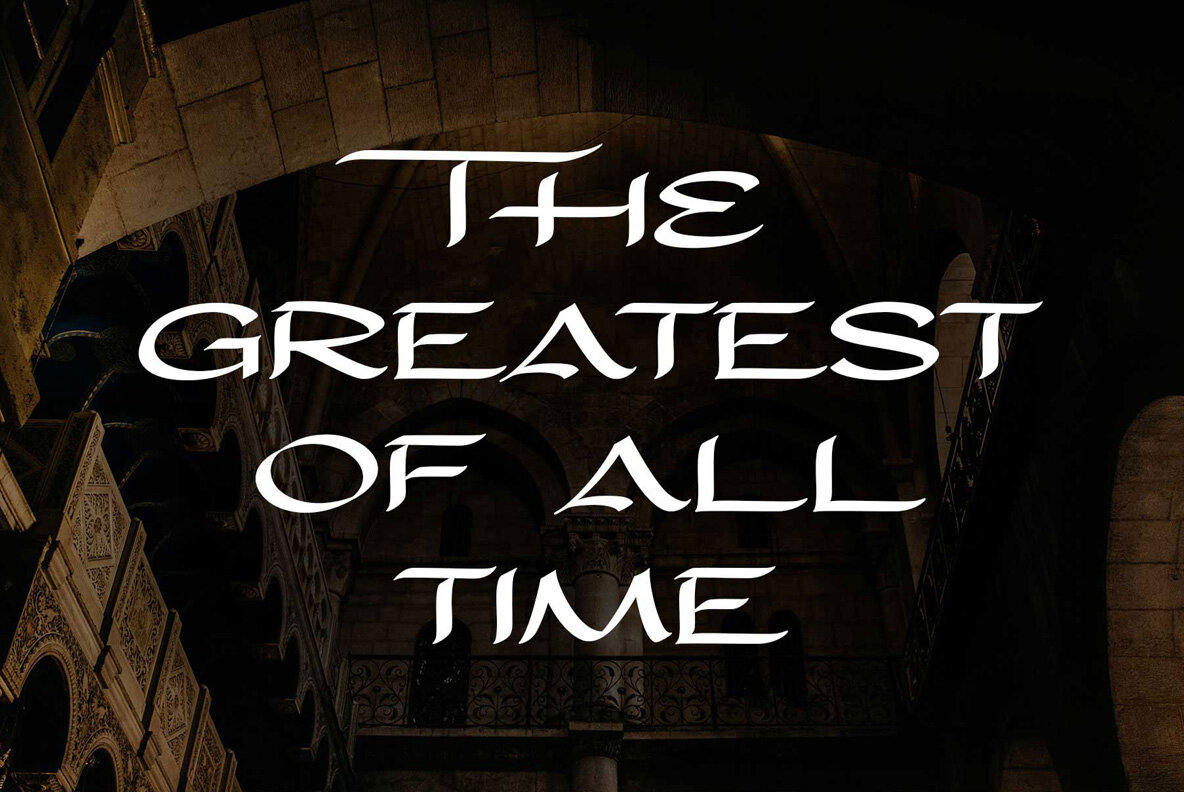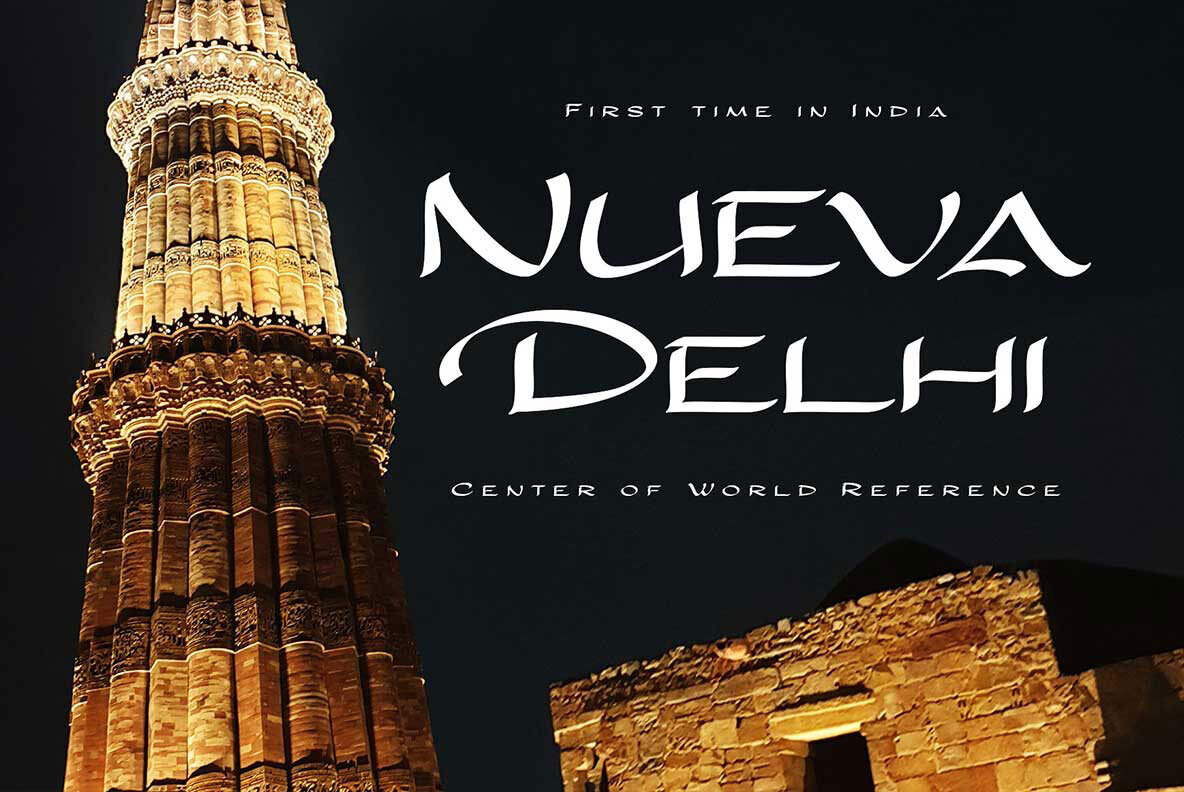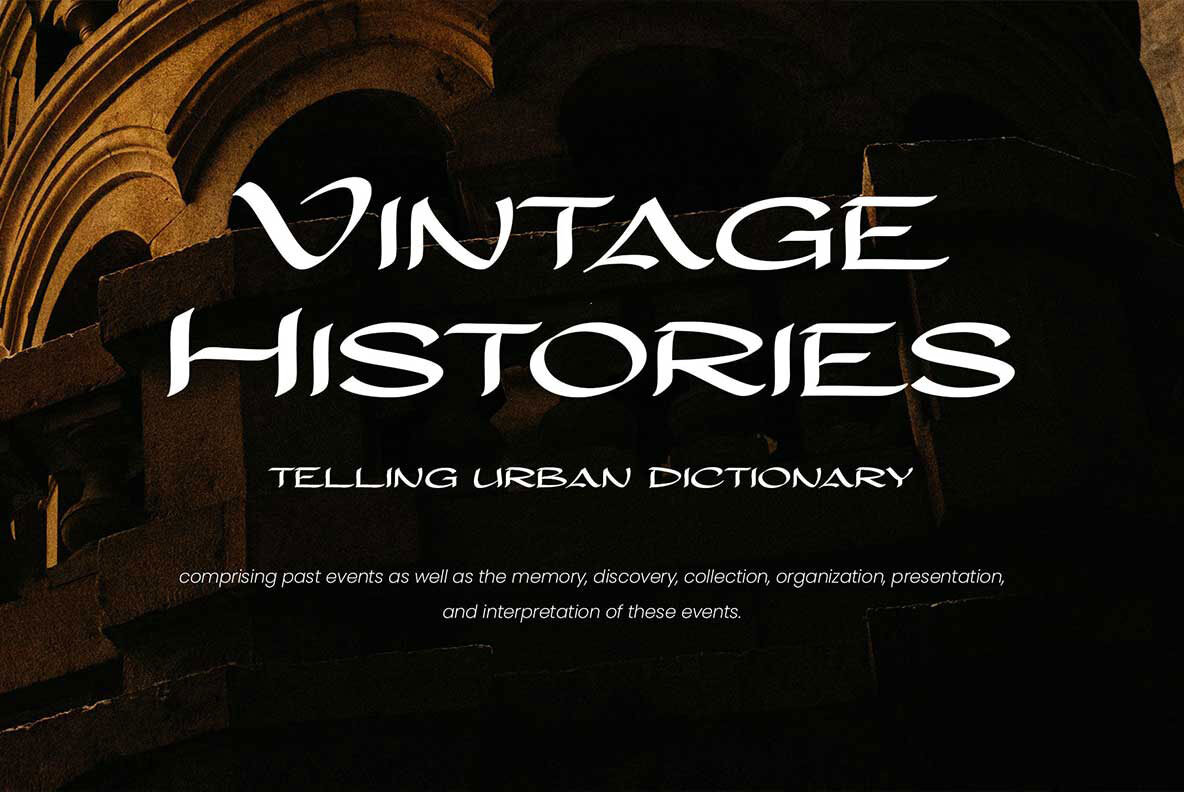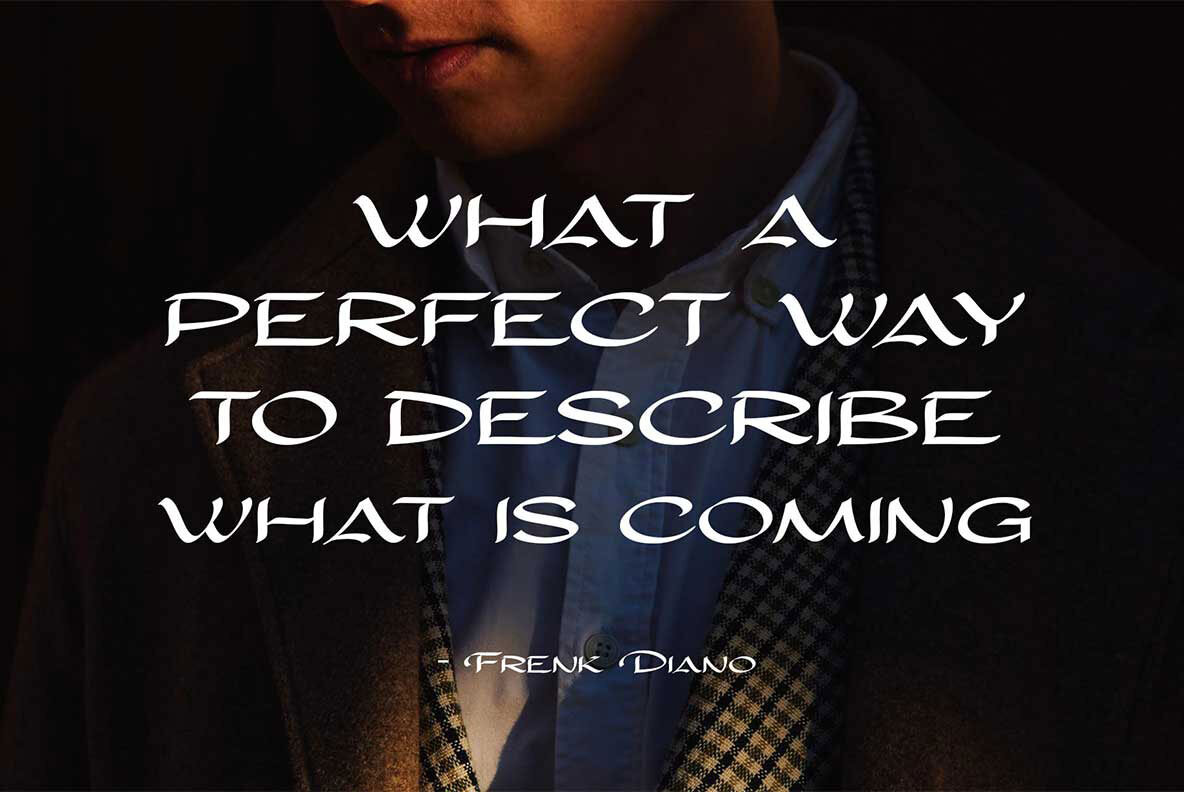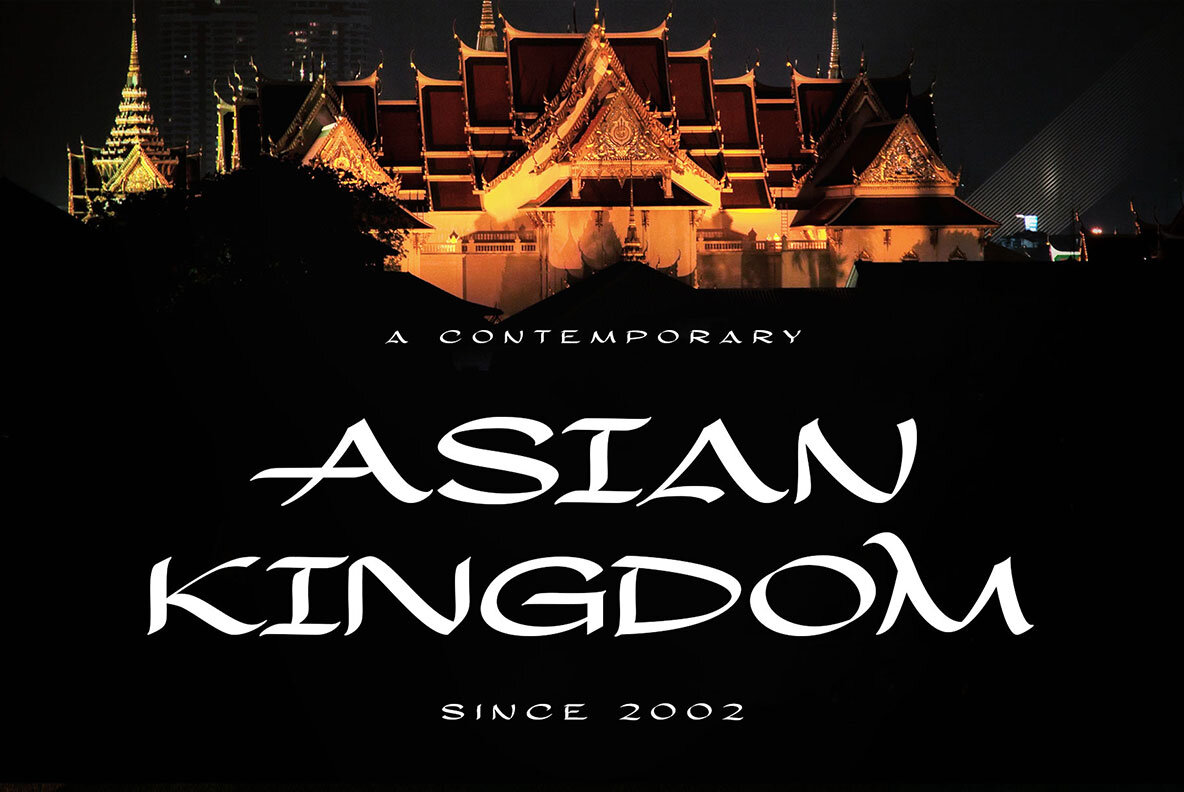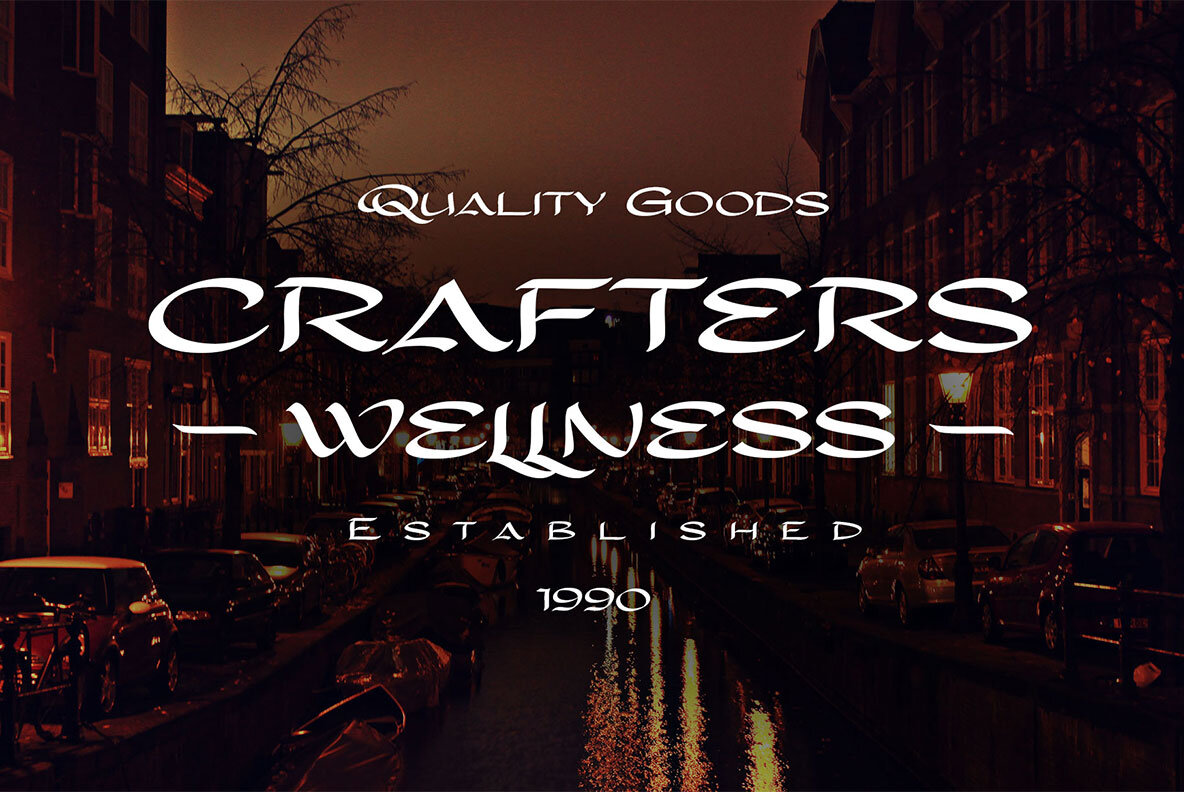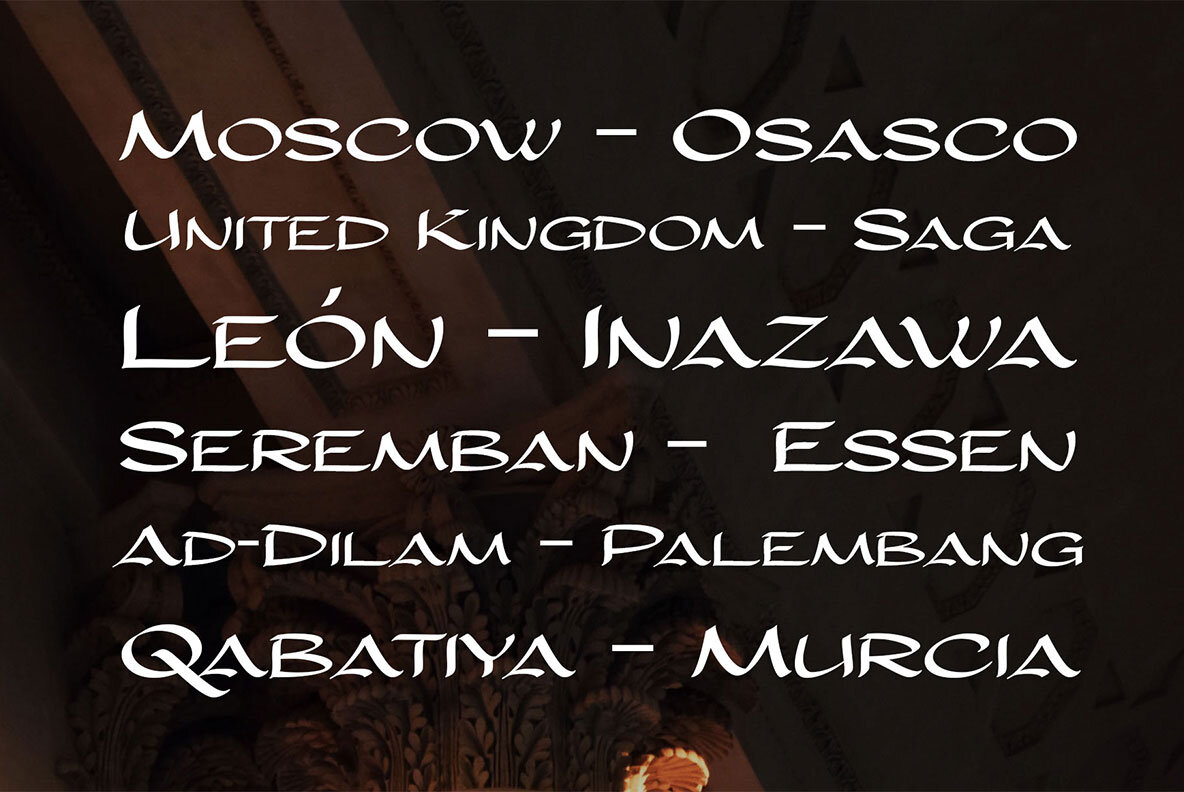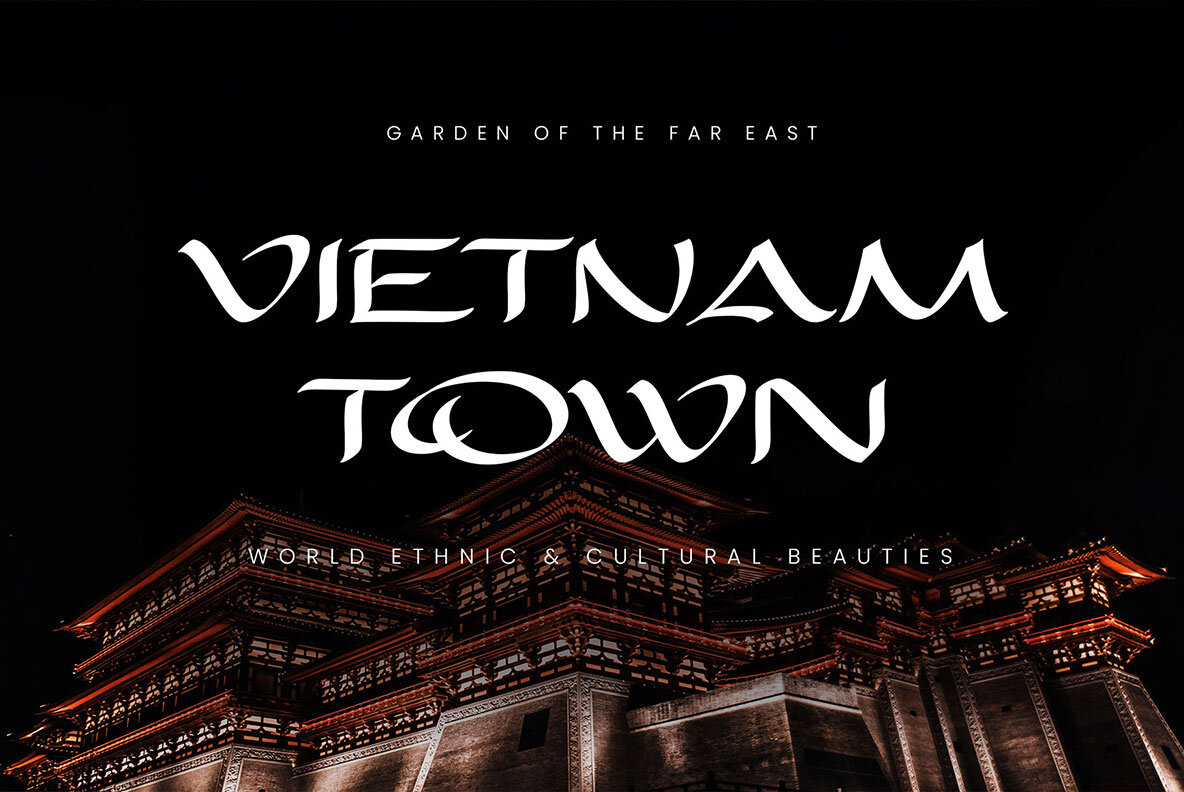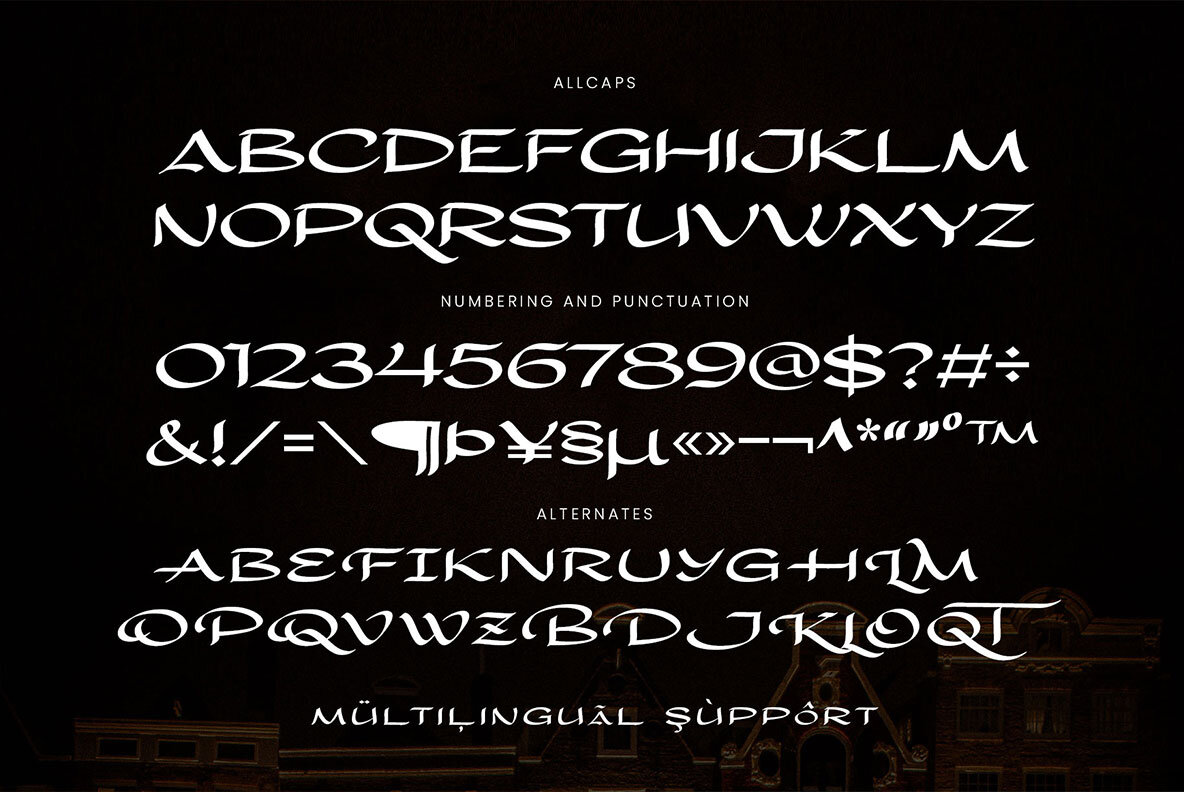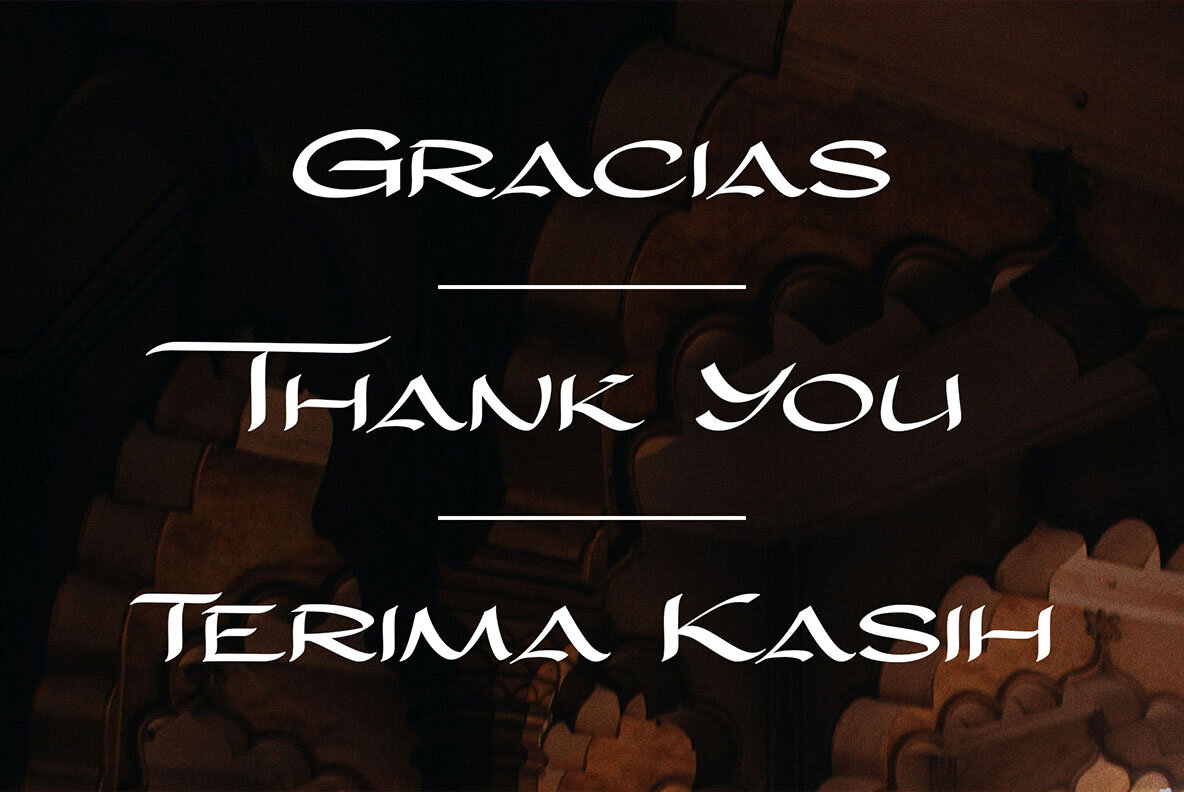
Javar Font
Javar Regular
Javar offers an all-caps display typeface, drawing inspiration from the grandiosity of Middle Eastern aesthetics. Crafted with dynamic strokes from a flat pen, it delivers majestic and commanding letterforms. These characteristics make Javar an excellent choice for projects steeped in themes of culture, history, religion, and epic battles. Features:Javar: A Bold Display Font with Middle Eastern Flair